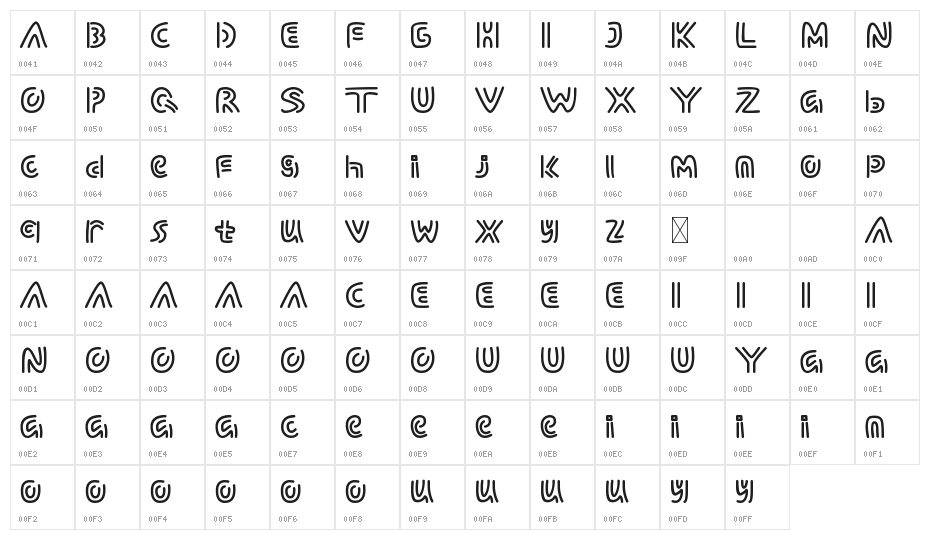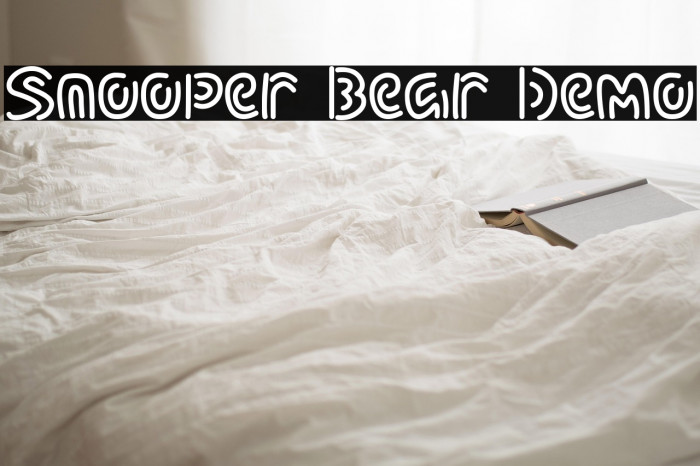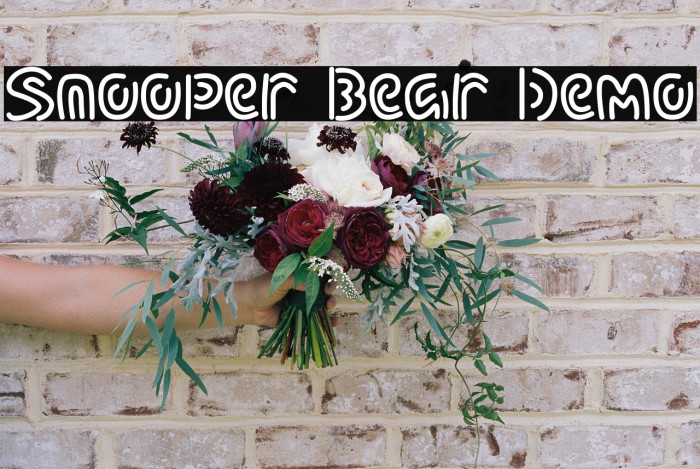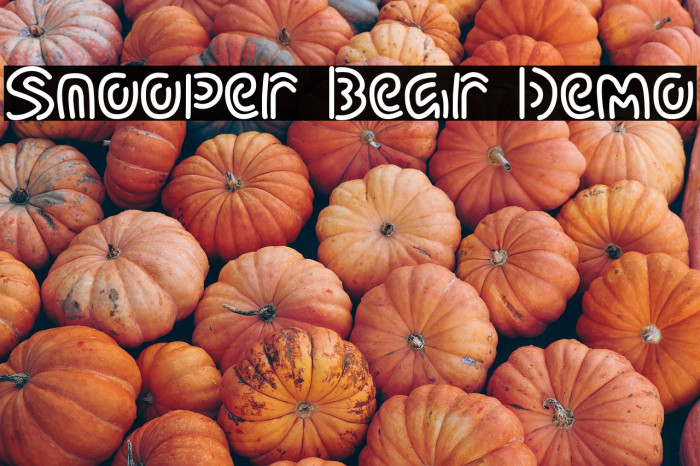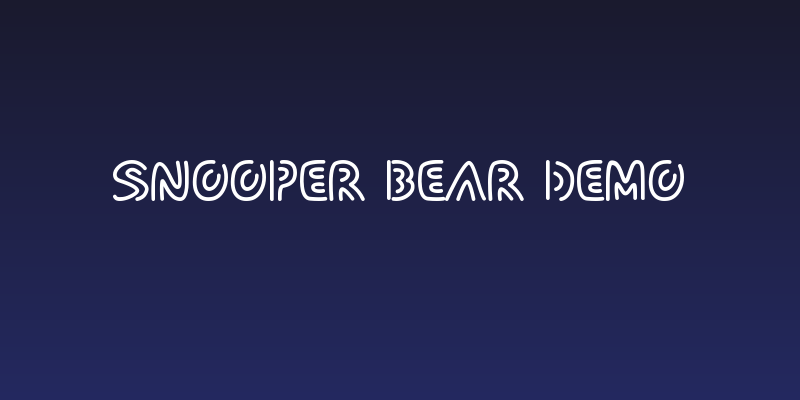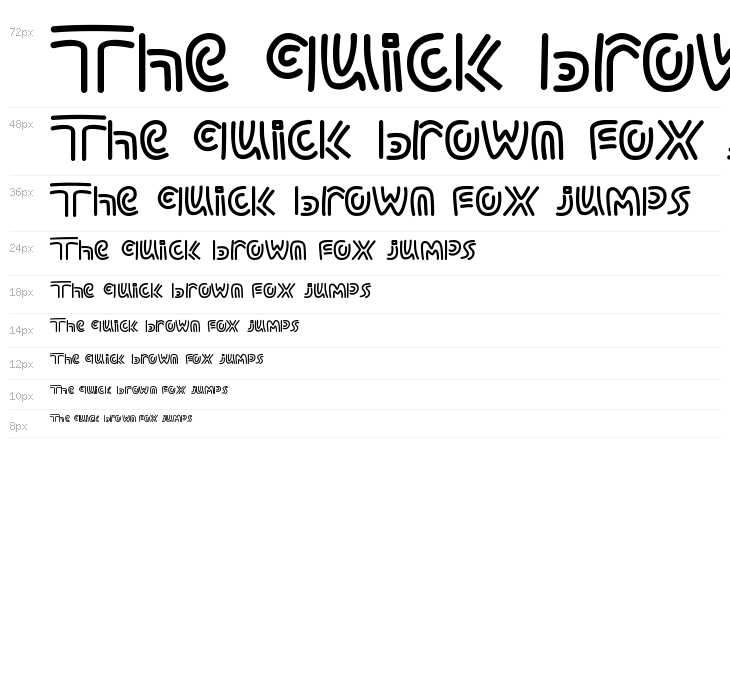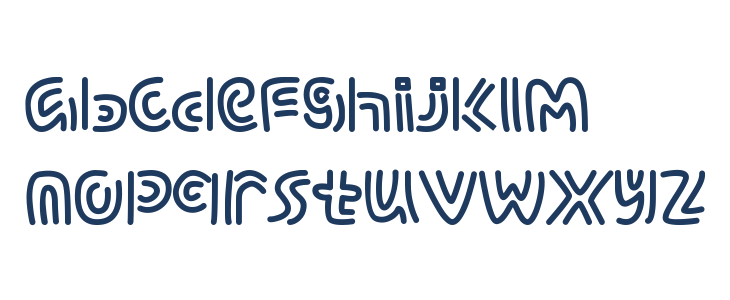
Snooper Bear Demo Font
Snooper Bear Demo Description
This font features a playful and bold design with a unique, rounded style. The characters are formed with thick, consistent strokes that create a sense of fun and creativity. The uppercase and lowercase letters maintain a uniform width, contributing to a cohesive look. The font's distinctive appearance is characterized by its rounded edges and smooth curves, making it ideal for projects that require a friendly and approachable aesthetic. The numbers and special characters are designed with the same playful style, ensuring consistency across all elements.
| Use Case | Logos, Posters, Branding |
| Proposed Projects | Ideal for children's books, playful branding, posters, and creative projects. |